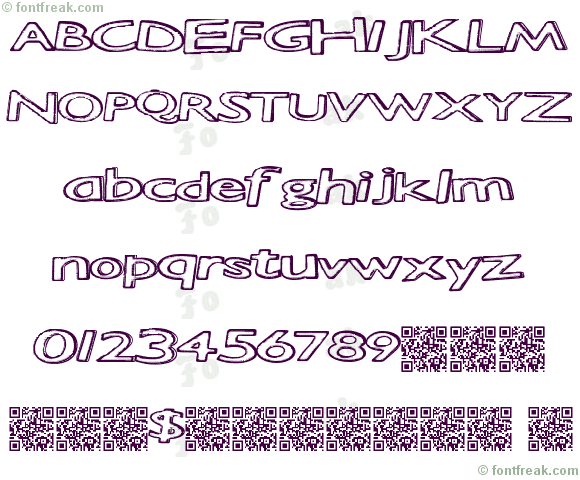
StaticHeights
About StaticHeights
StaticHeights, crafted by XEROGRAPHER FONTS in 2013, is a unique display font that combines a playful yet structured aesthetic. This font features a distinctive handwritten style, characterized by its bold, slightly irregular strokes that lend it a dynamic and energetic feel. The stroke weight varies throughout the characters, creating a sense of movement and emphasis. Its spacing is well-balanced, ensuring legibility while maintaining a casual flair. The playful contours and the subtle variations in thickness make it an eye-catching choice for a variety of design projects.
The StaticHeights font is an excellent option for numerous applications. Its lively appearance makes it ideal for creating vibrant movie posters that demand attention or for crafting whimsical invitations for events like birthday parties and casual gatherings. Additionally, it can enhance restaurant menus, giving them a unique character that matches a fun dining experience. Small business owners looking to develop a memorable brand identity can also benefit from using this font in their logos or promotional materials. Graphic designers and content creators will find it a versatile choice that can bring a fresh, engaging vibe to their projects.
What truly sets the StaticHeights font apart is its ability to blend casual charm with professional usability, making it perfect for both informal and creative contexts. With its unique style and versatility, the StaticHeights font free download is a must-have for those who want to make their projects stand out.